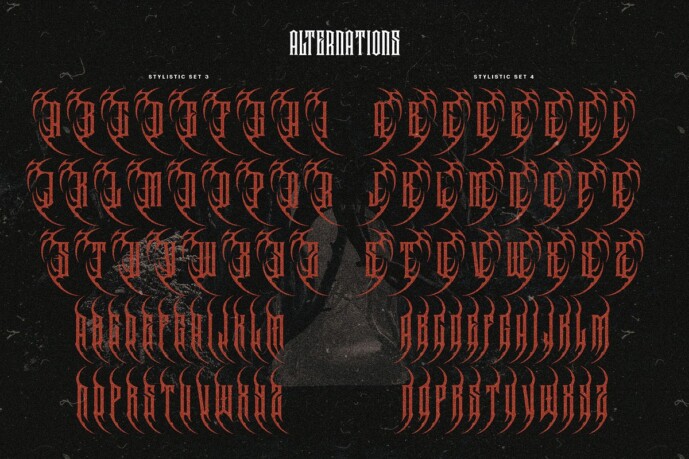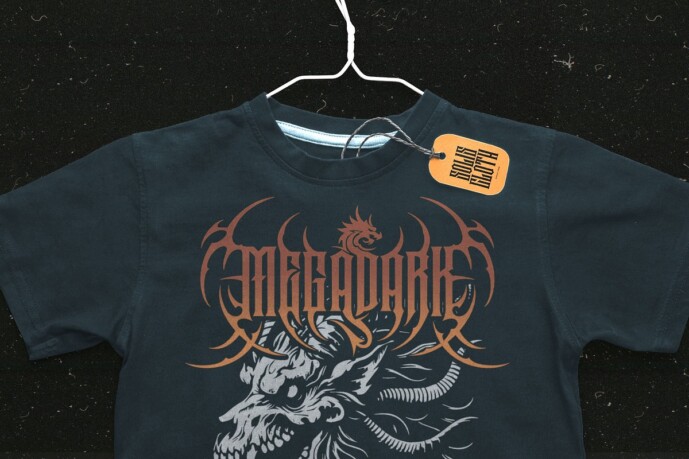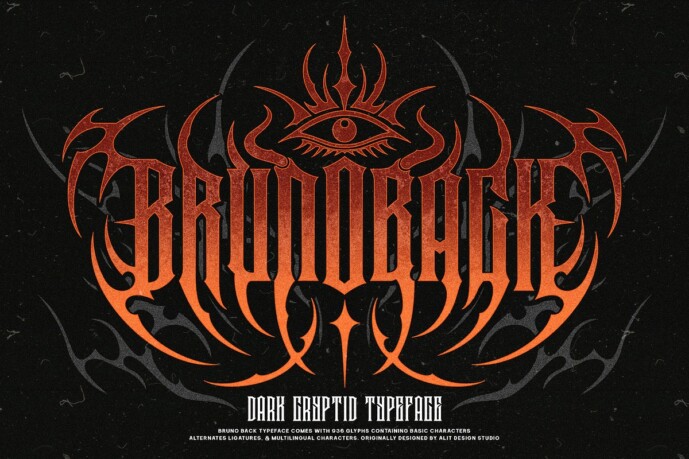
Bruno Back Font
Designer: alit design
Bruno Back Font is the ultimate fusion of tradition and modernity, crafted for those who crave a fierce and adventurous design. Inspired by the boldness of blackletter aesthetics and reimagined with a contemporary edge, this typeface breathes life into dark metal themes while staying versatile enough for movie titles, gaming adventures, or anything that demands raw intensity.
Bruno back Regular